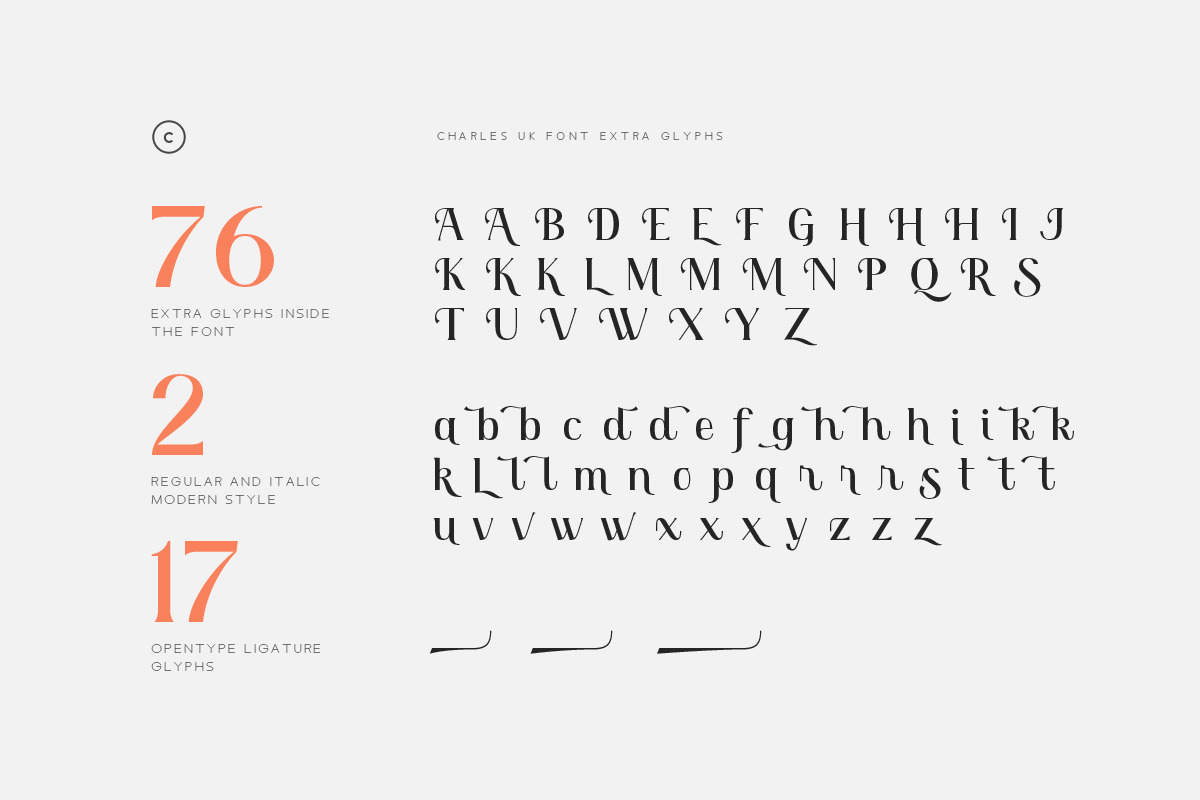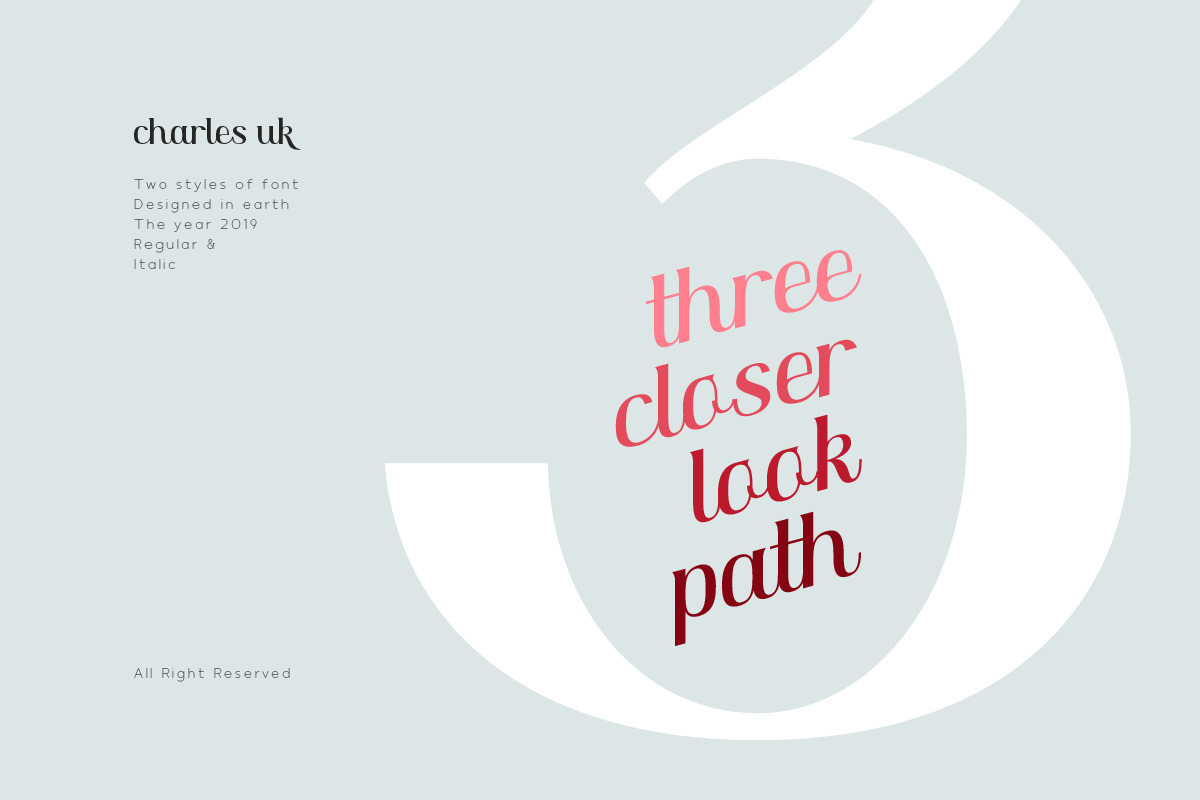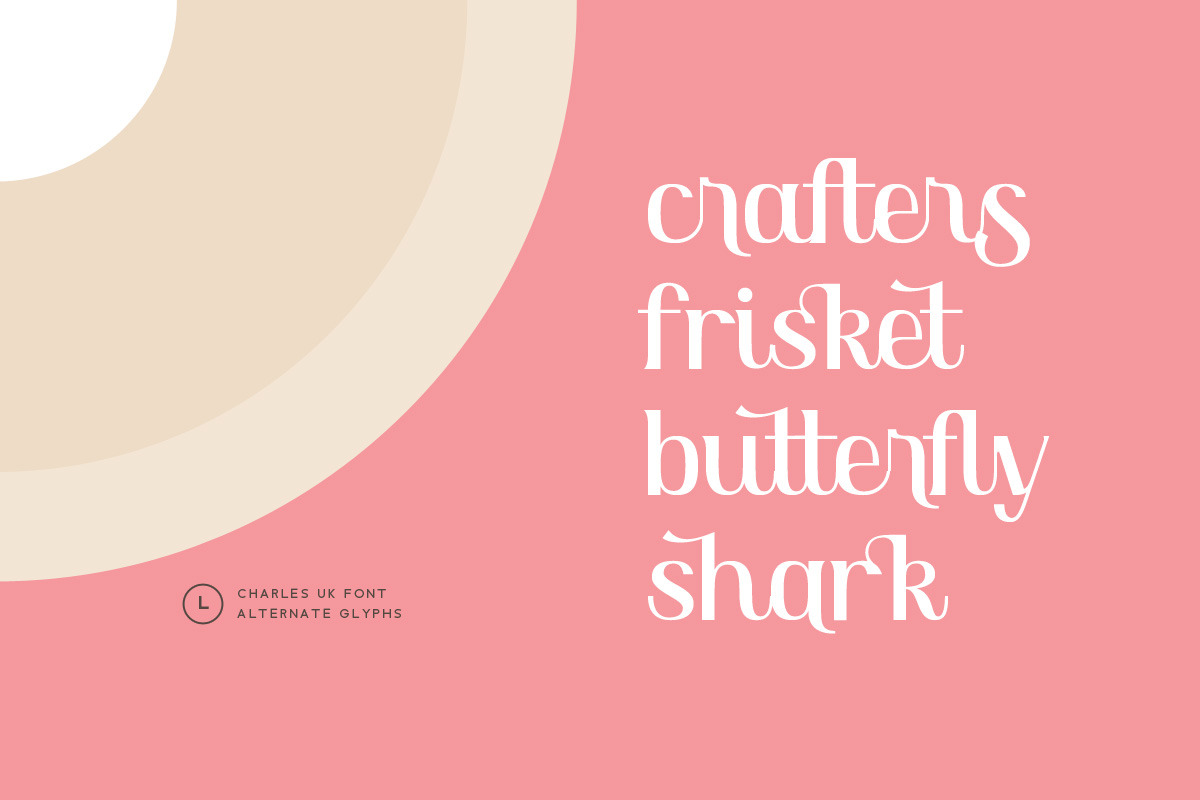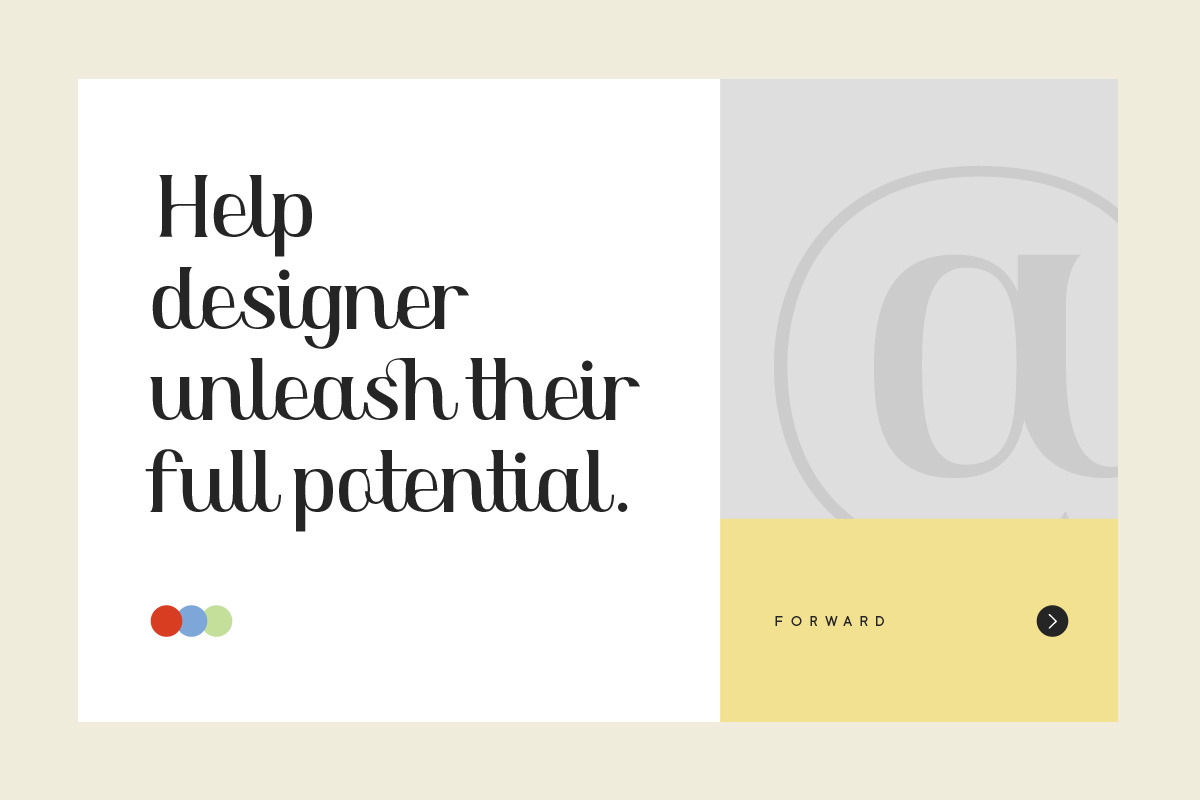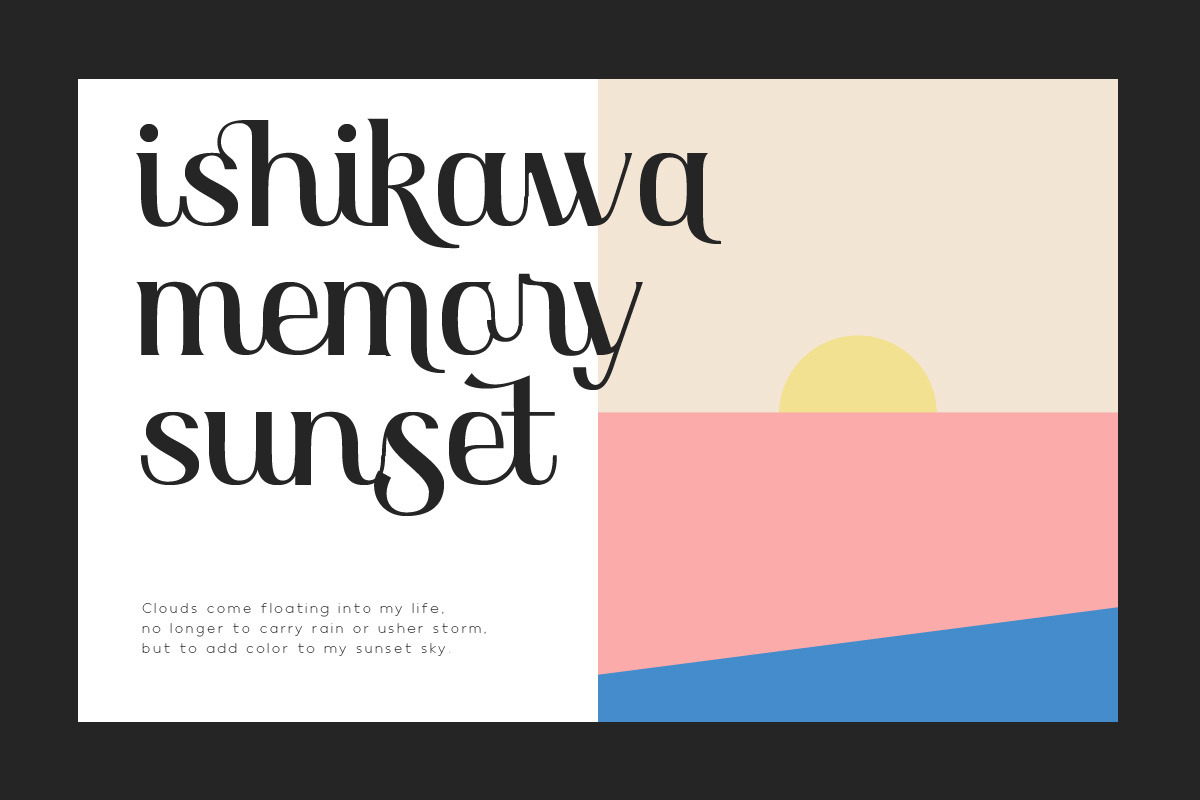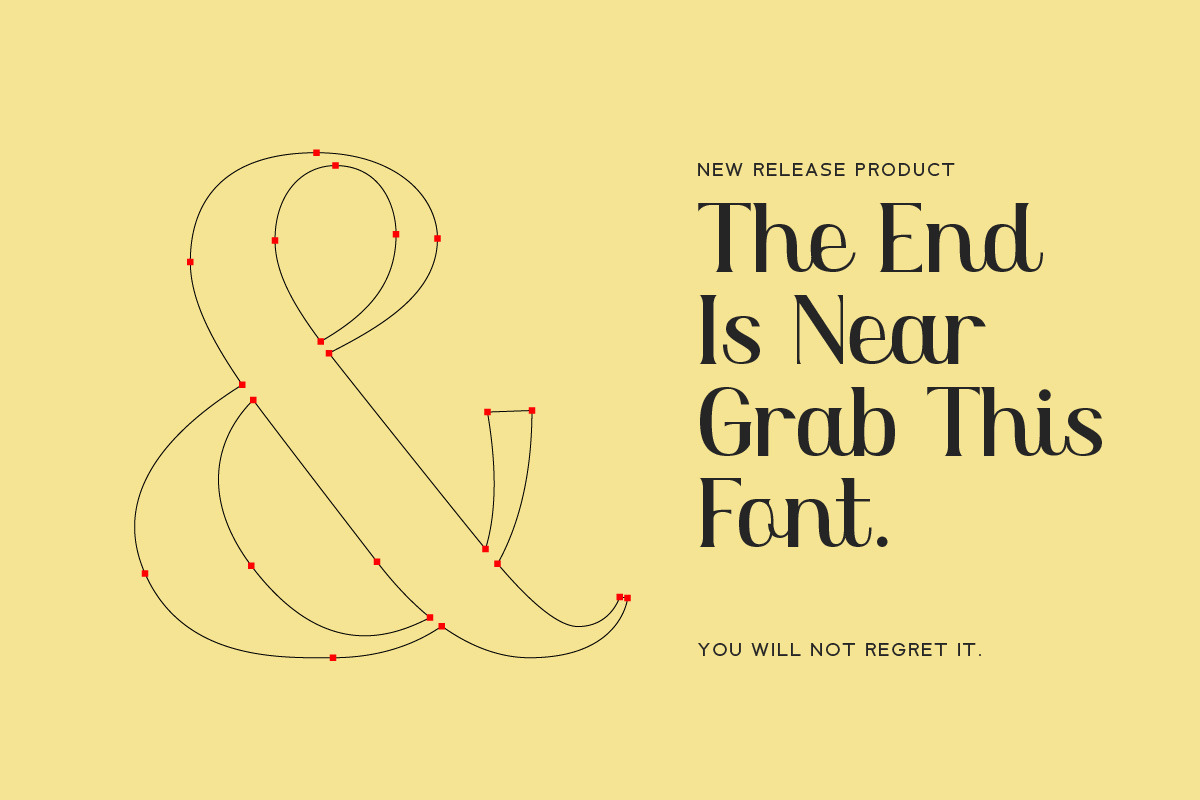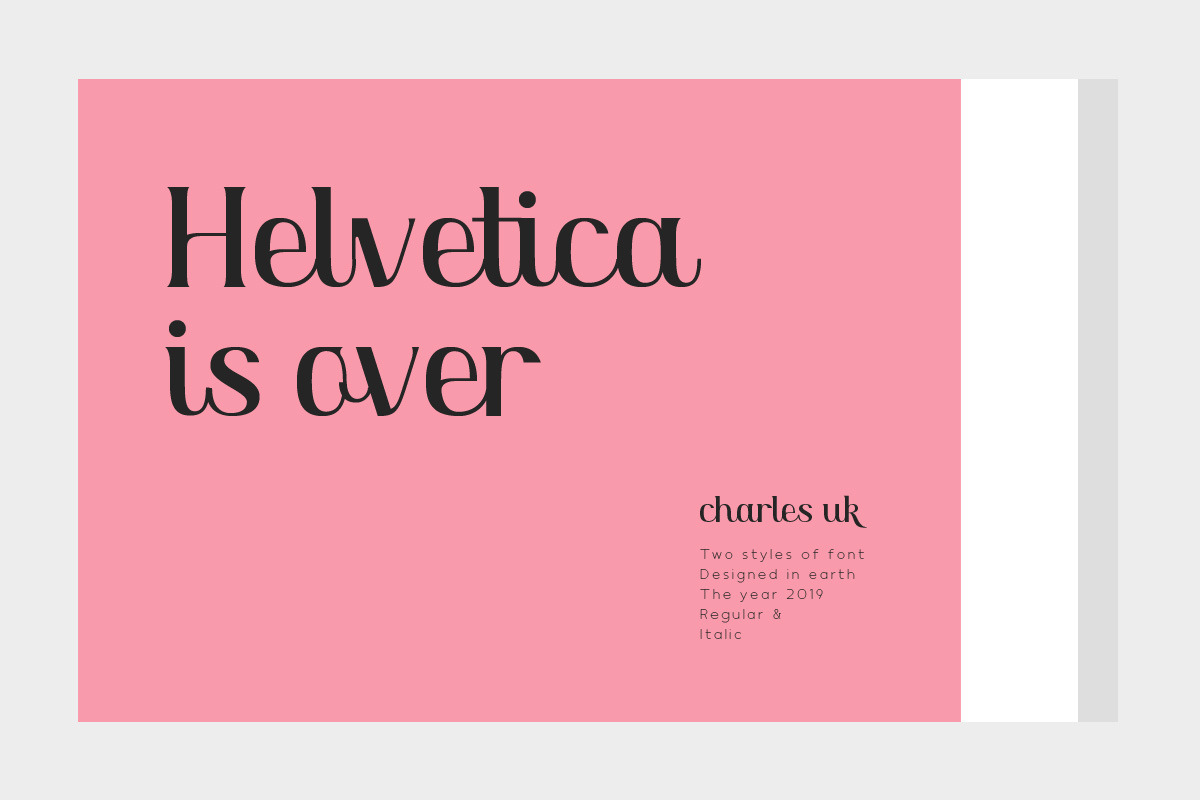
Charles UK Font
Charles UK is a modern classic font with Europe looks. I can say this font has a lot combination style eg: modern, classic, luxury, fashion, sans serif, decorative... This font will work on any media, you can use it for logo, headline, typography poster, product packaging, or event your wedding invitation.